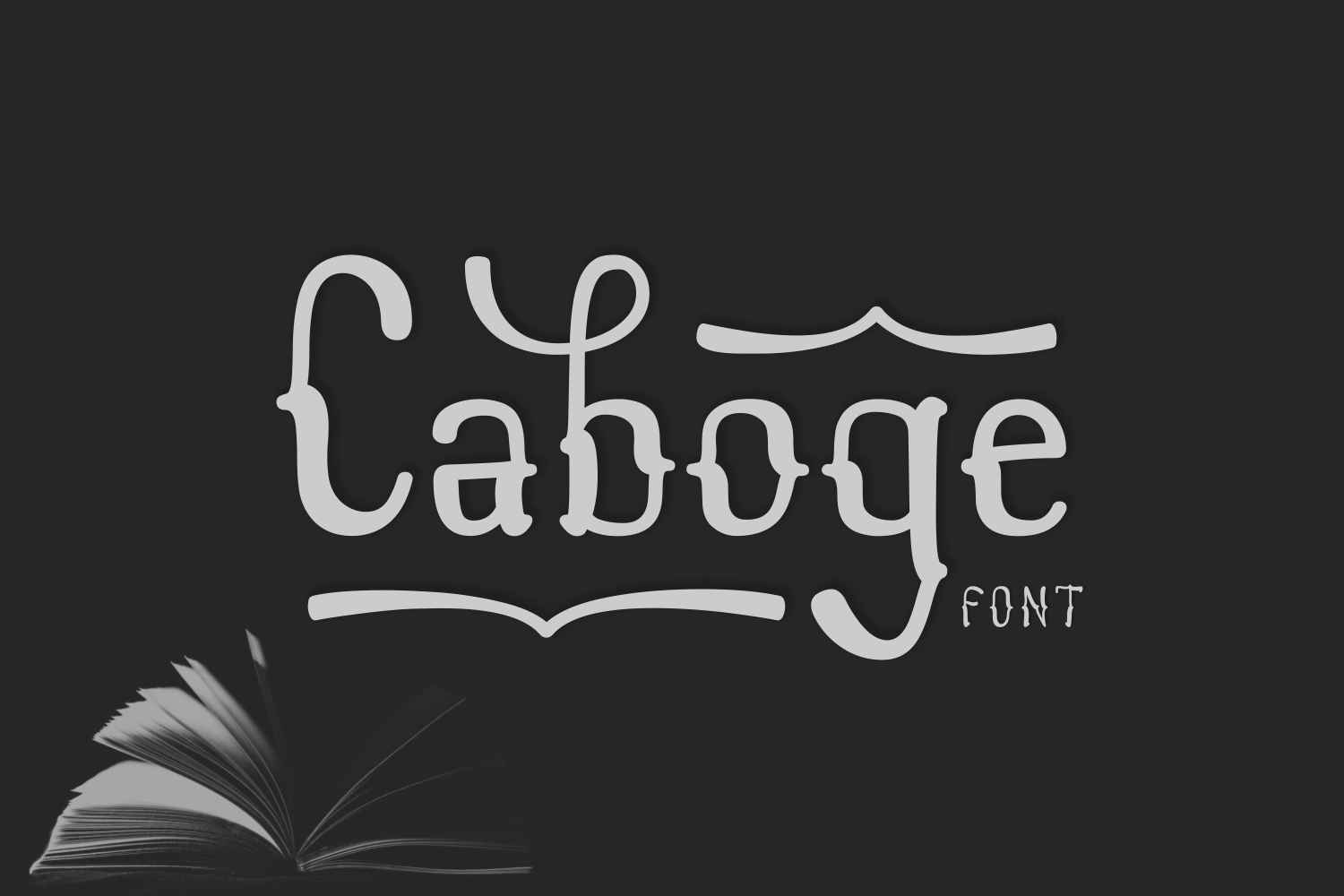
The Elegance of Caboge Font: A Designer’s Delight
I still remember the time I was working on a project for a luxury brand, and I was struggling to find the perfect font that exuded elegance and sophistication. The client wanted a font that would make their brand stand out, while still being legible and easy to read. After hours of scouring through font libraries, I stumbled upon the Caboge font, and it was love at first sight! ✨
A Personal Review of Caboge Font
As a designer, I’m always on the lookout for fonts that can elevate my designs and make them stand out. Here’s my honest review of the Caboge font:
- ✅ Elegant display font with small decorative elements that give it a classical, authentic look and feel
- ✅ Perfect for making designs stand out while keeping text legible
- ✅ Highly versatile and can be used for a variety of design projects, from luxury branding to wedding invitations
- ✨ Beautifully crafted with attention to detail, making it a joy to work with
- ⚠️ Some users may find the font a bit too ornate for certain design projects
- 🤔 Limited use for body text, as it’s primarily designed for display purposes
The Story Behind Caboge Font
The Caboge font was designed by a renowned type designer who wanted to create a font that would evoke the elegance and sophistication of classical typography. Inspired by traditional serif fonts, the designer crafted the Caboge font with attention to detail and a passion for beauty. The result is a font that’s both timeless and modern, perfect for designers who want to add a touch of luxury to their designs.
| Font Name | Caboge Font |
| Author | Omus (7ntypes) |
| What is the Caboge font best used for? | The Caboge font is best used for display purposes, such as headings, titles, and logos. It’s perfect for luxury branding, wedding invitations, and formal events. |
| Is the Caboge font legible? | Yes, the Caboge font is highly legible, even at smaller font sizes. However, it’s primarily designed for display purposes, so it’s best used for headings and titles rather than body text. |
| Is the Caboge font available in different styles? | Yes, the Caboge font comes in different styles, including regular, italic, and bold. You can also access OpenType features, such as glyphs and stylistic alternates, to add more creativity to your design. |